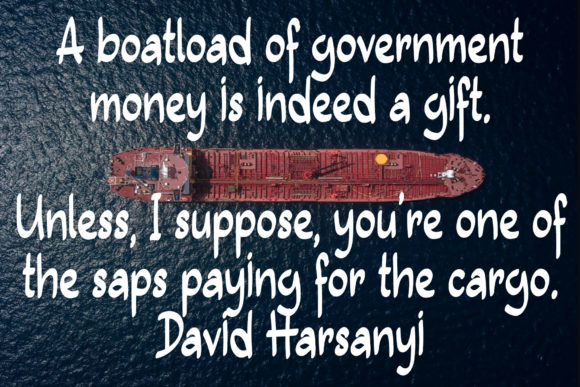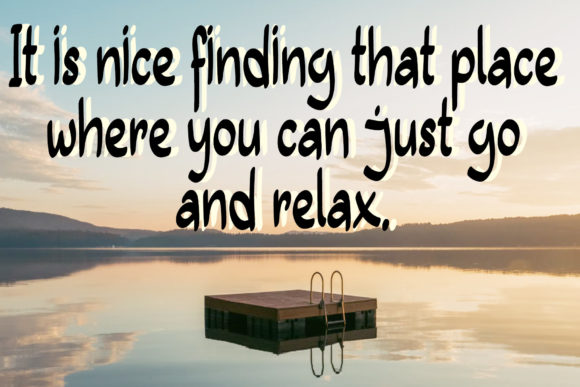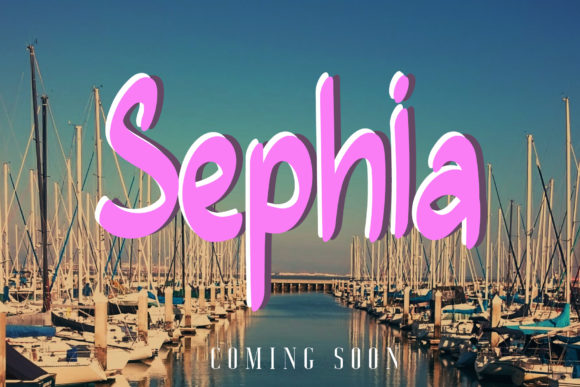
Introduction to Port Bastwick Font
Do you remember the moment when a spark of creativity struck you, and you knew exactly what you wanted to create? For designers, this moment is what drives us to push the boundaries of our imagination. One crucial element in bringing our ideas to life is the right font, and that’s where the Port Bastwick Font comes in.
This simple yet elegant script font is designed to make a lasting impression, whether it’s for a logo, branding, or quote. Its balanced and varied design ensures that your creative project shines with high-quality typography, making it an invaluable design resource for any project.
With the Port Bastwick Font, you can add a touch of sophistication to your designs, and with its free download option, you can experiment with it on a transparent background to see how it enhances your idea. Whether you’re a seasoned designer or just starting out, this font is sure to become a valuable addition to your toolkit.
Key Features of Port Bastwick Font
- Unique characteristics: bold and elegant font style, perfect for headings and titles
Honest Review: Port Bastwick Font
As a designer, I’m always on the lookout for high-quality design resources that can elevate my creative projects. Recently, I had the chance to test the Port Bastwick Font, and I must say it’s been a game-changer.
What works well is its versatility and wide range of applications. Whether you’re working on a business card, logo, or website, the Port Bastwick Font is sure to impress. Its clean and modern design makes it perfect for any creative project that requires a touch of sophistication.
However, I did encounter some limitations when using the font in certain design software. ⚠️ The font sometimes struggles to render properly, especially when used at smaller font sizes.
Overall, I’m thoroughly impressed with the Port Bastwick Font. Its unique design and high-quality features make it a valuable resource for any designer. If you’re looking to elevate your creative project, I highly recommend giving it a try.
- ✨ Versatile and wide range of applications
- ✨ Clean and modern design
Common Use Cases for Port Bastwick Font
The Port Bastwick Font is ideal for a variety of creative projects, including logos, business cards, and brochures. Its unique design and transparent background make it perfect for creating eye-catching graphics and designs.